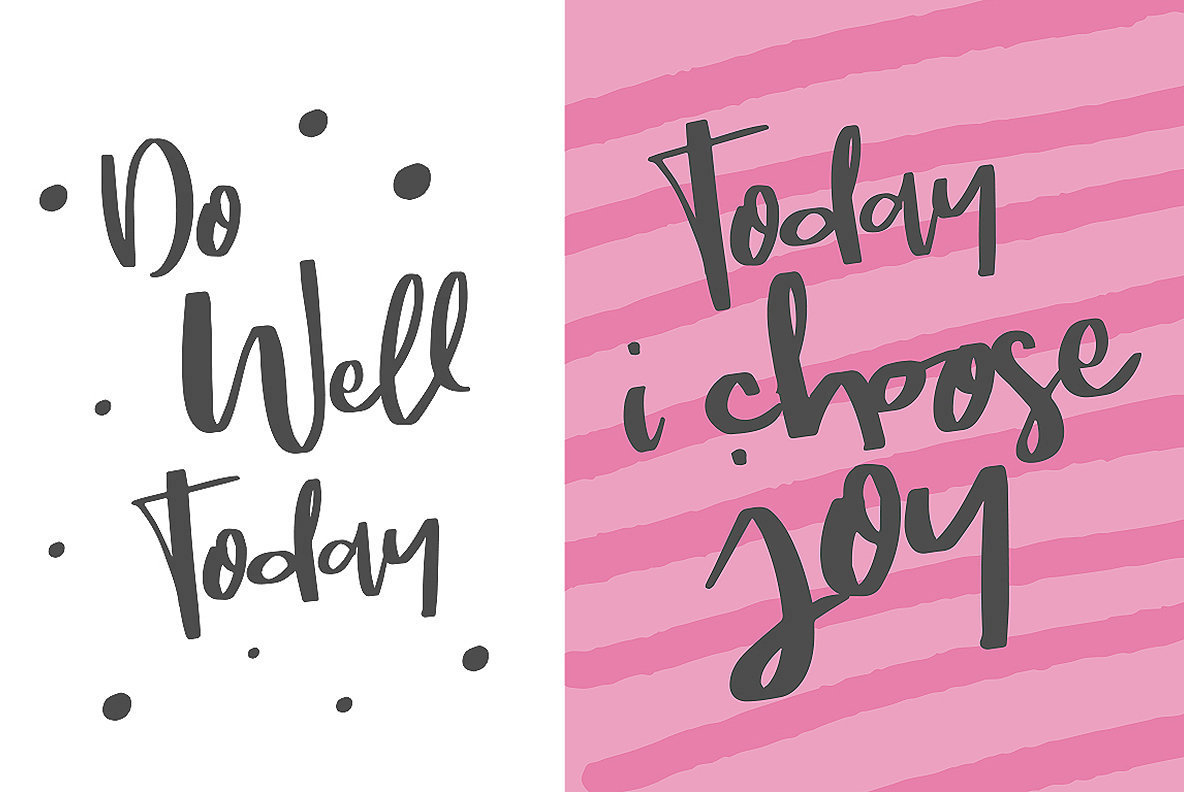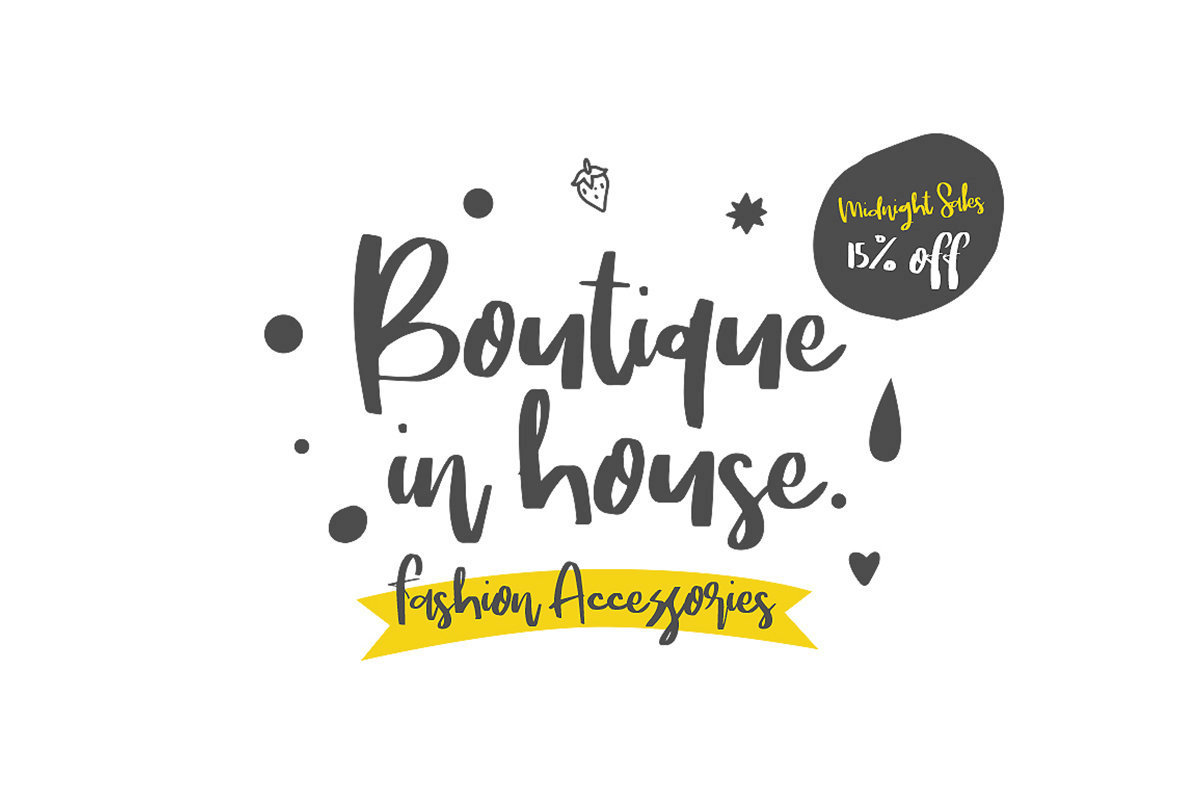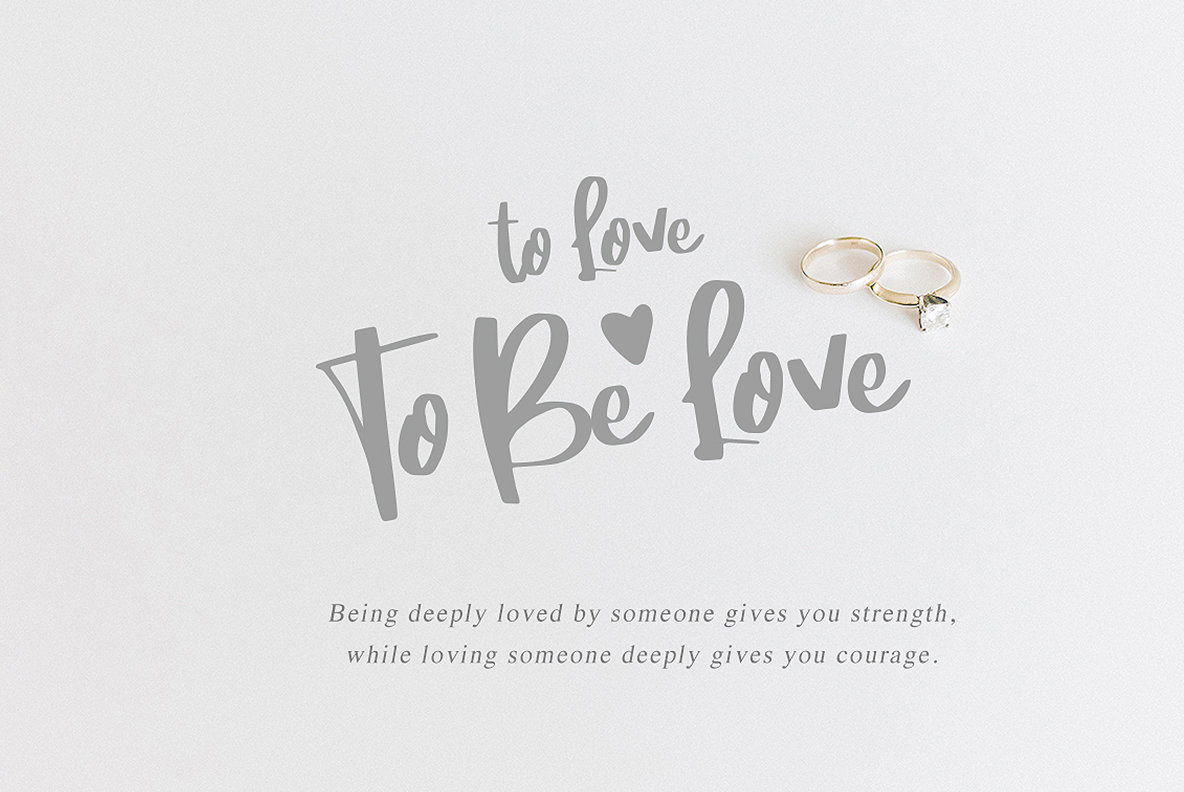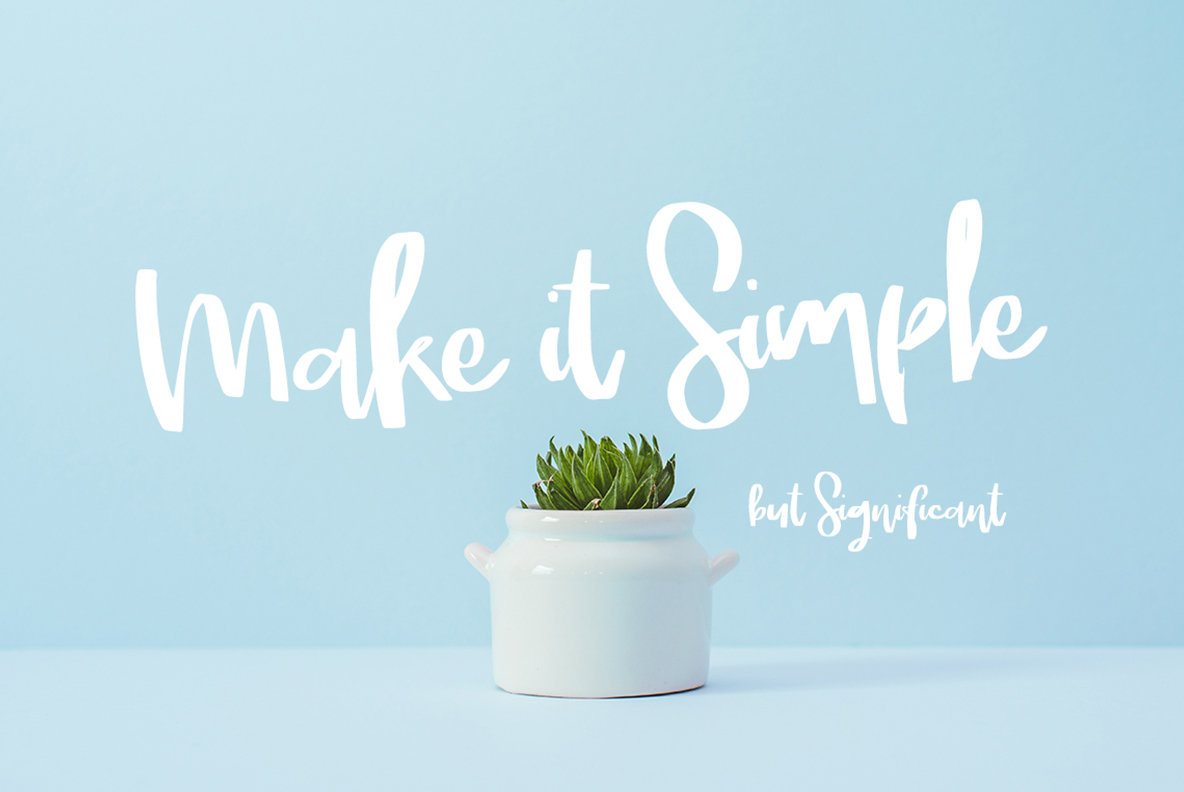
Mield Script Font
Mield Script
Immerse yourself in the charm and craftsmanship of Mield Script, a typeface meticulously designed for those who appreciate the beauty of handmade typography. This adorable script font is perfect for a wide range of applications, from blogging and logo design to crafting exquisite wedding invitations and memorable quotations. The inherent whimsy of Mield Script, paired with its elegance, allows you to effortlessly craft designs that resonate.Mield Script: A Whimsical Script Typeface for Creative Projects
Embrace the flexibility of Mield Script in your next creative venture and enjoy its endless possibilities.